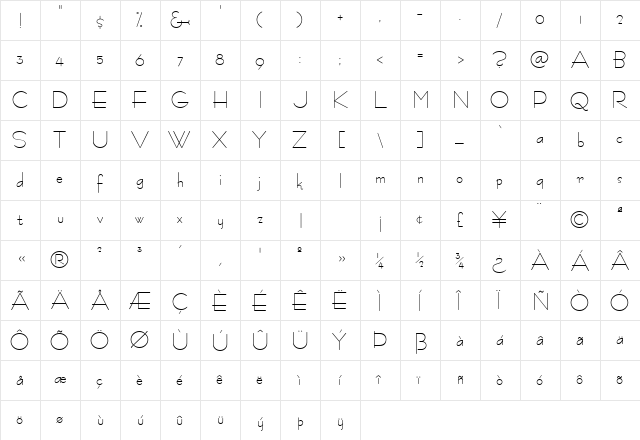
Fashion Normal Font Preview
Fashion Normal
Design Context for Fashion Typeface
Fashion is a composed and adaptable typeface that performs quietly and consistently across a wide range of design contexts.